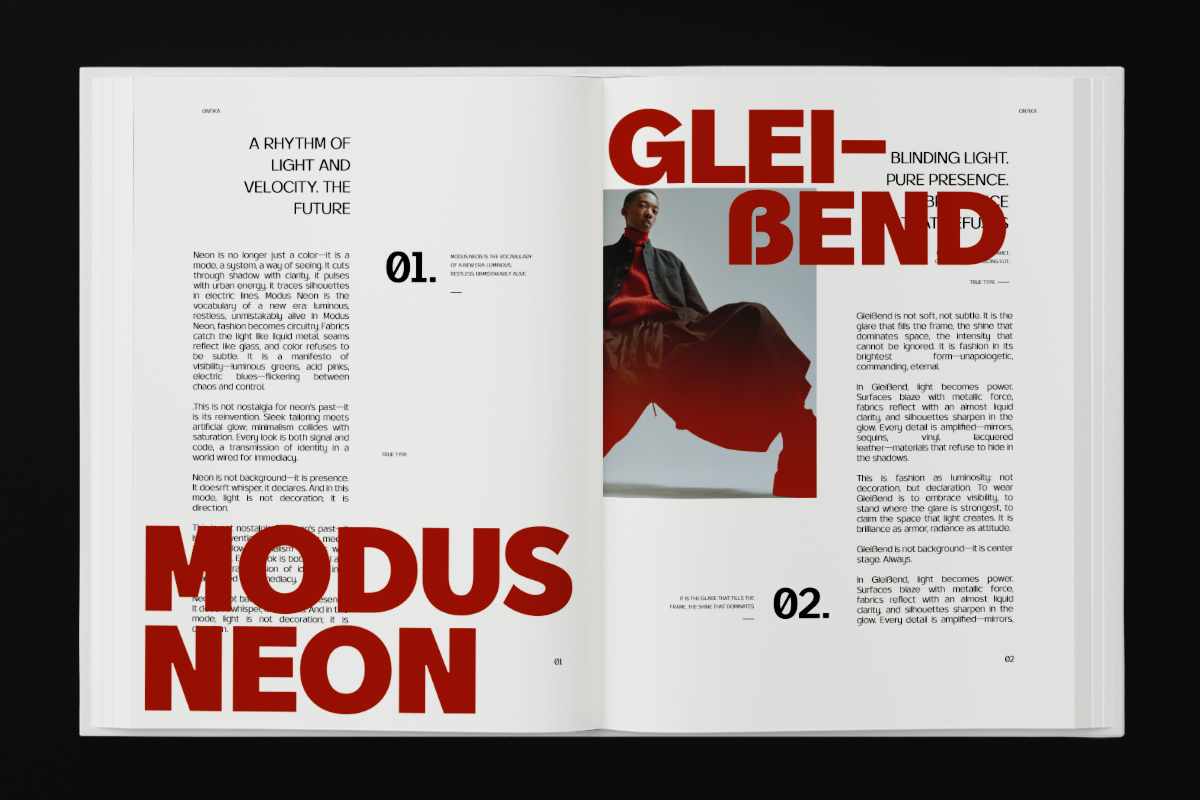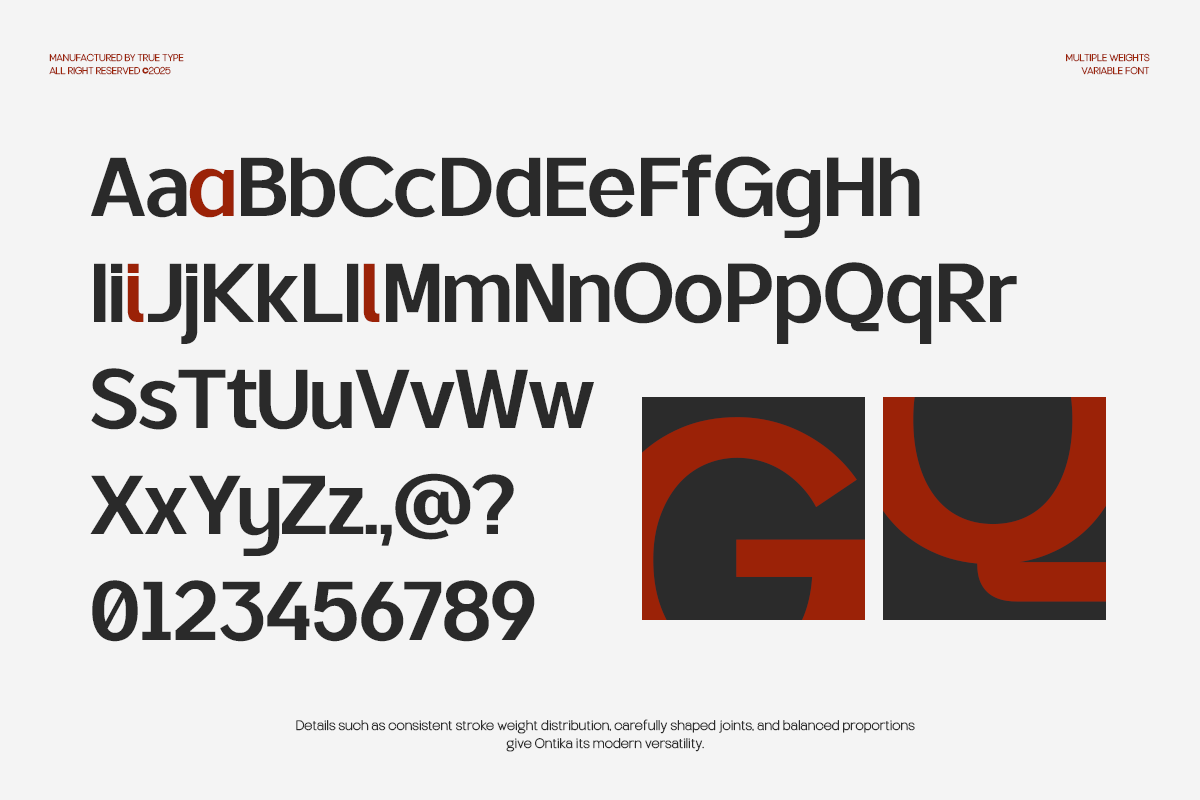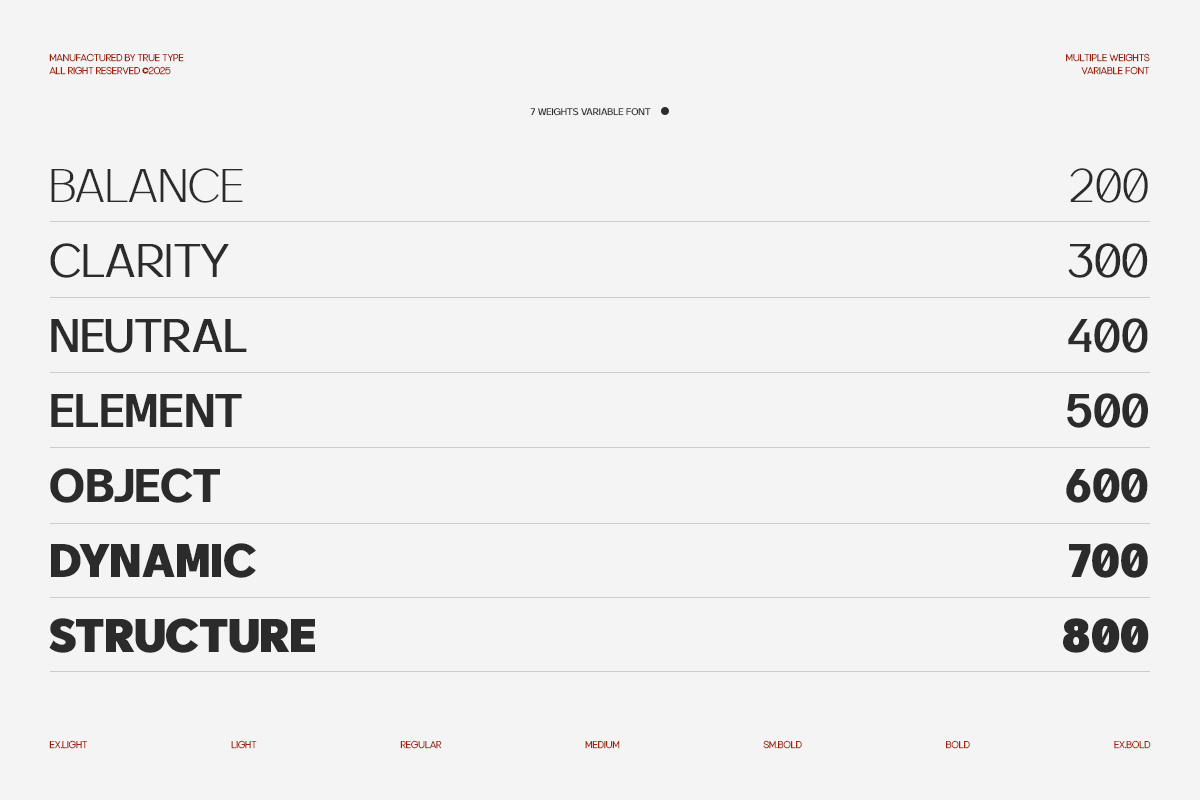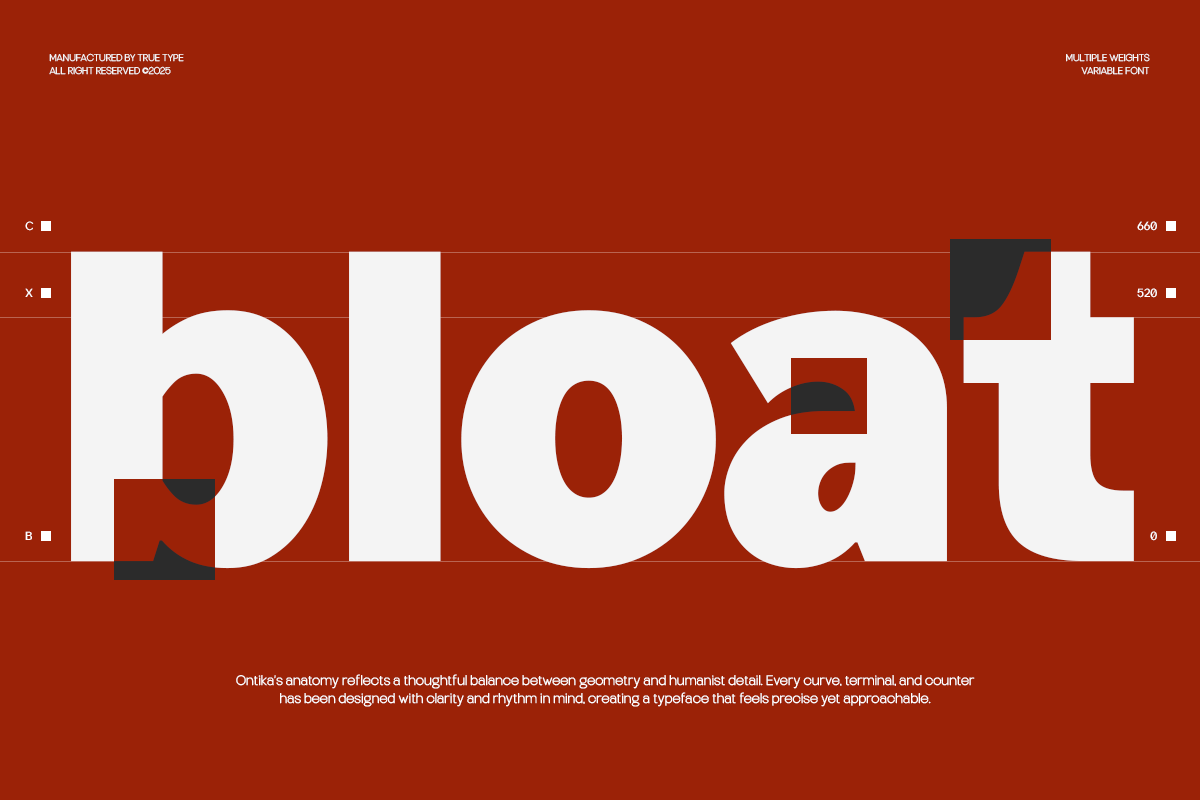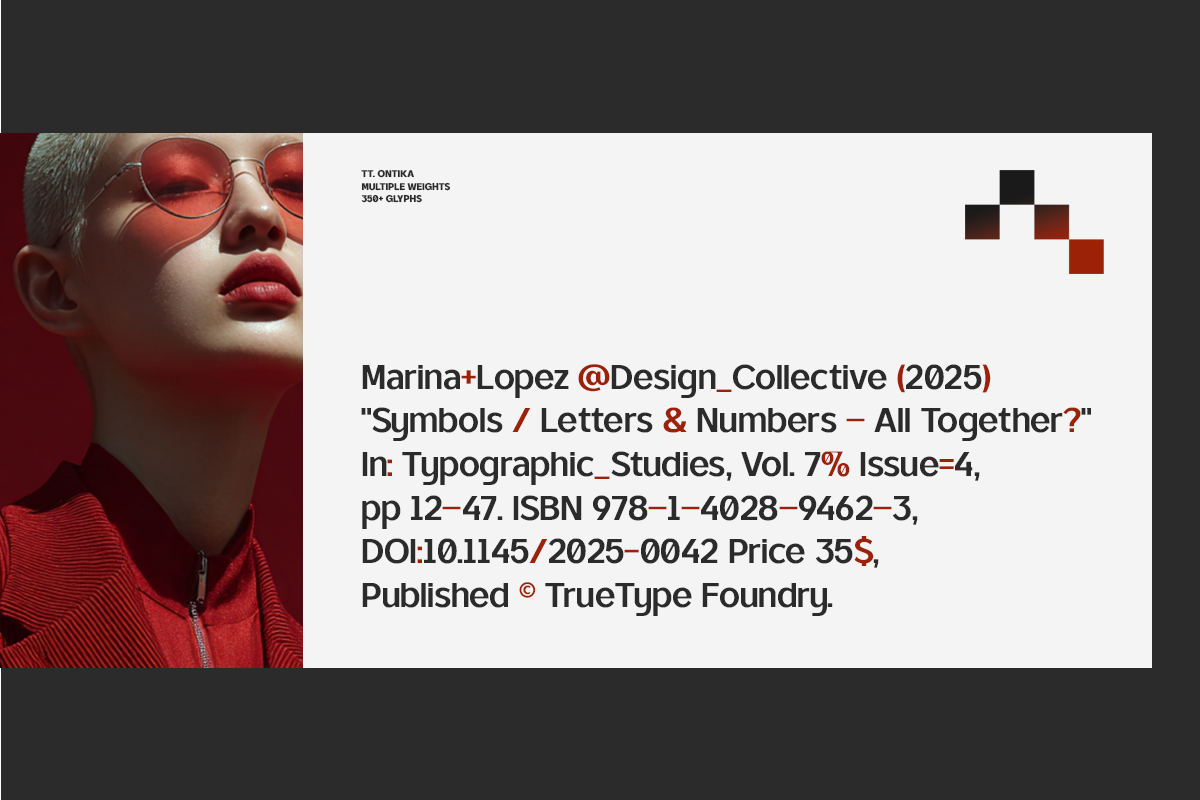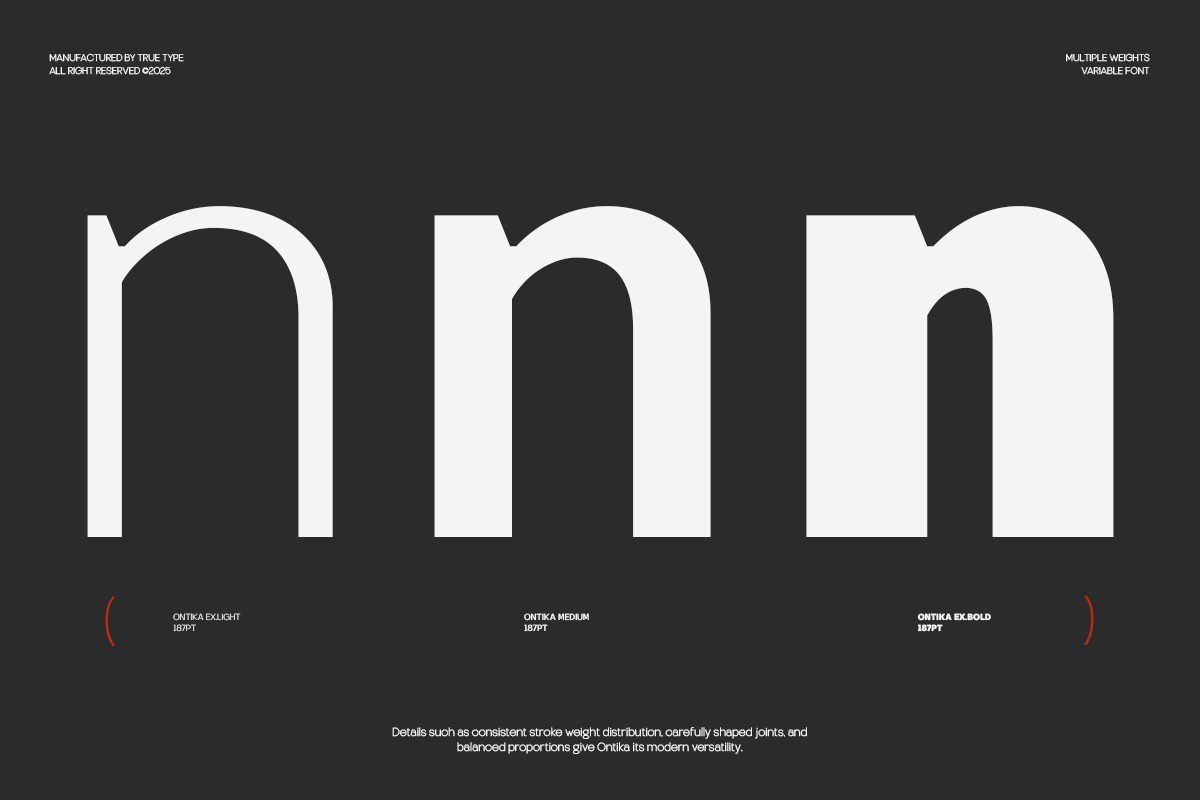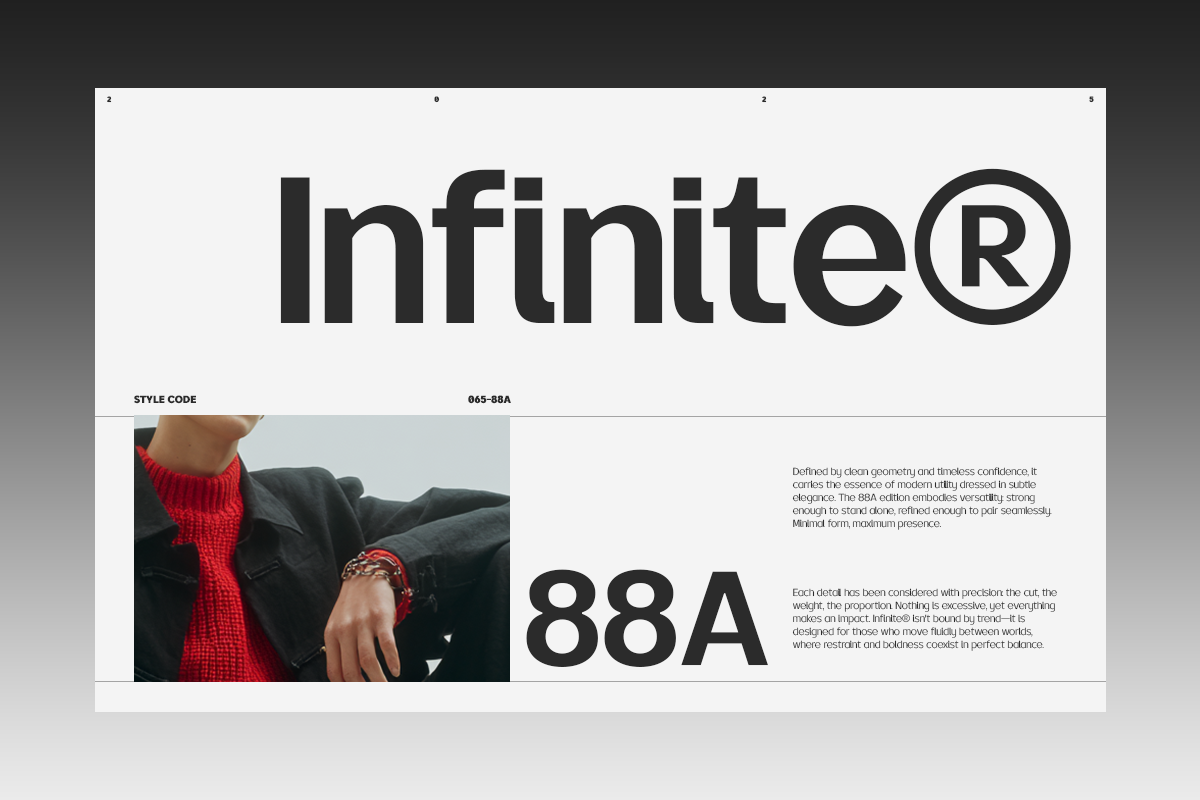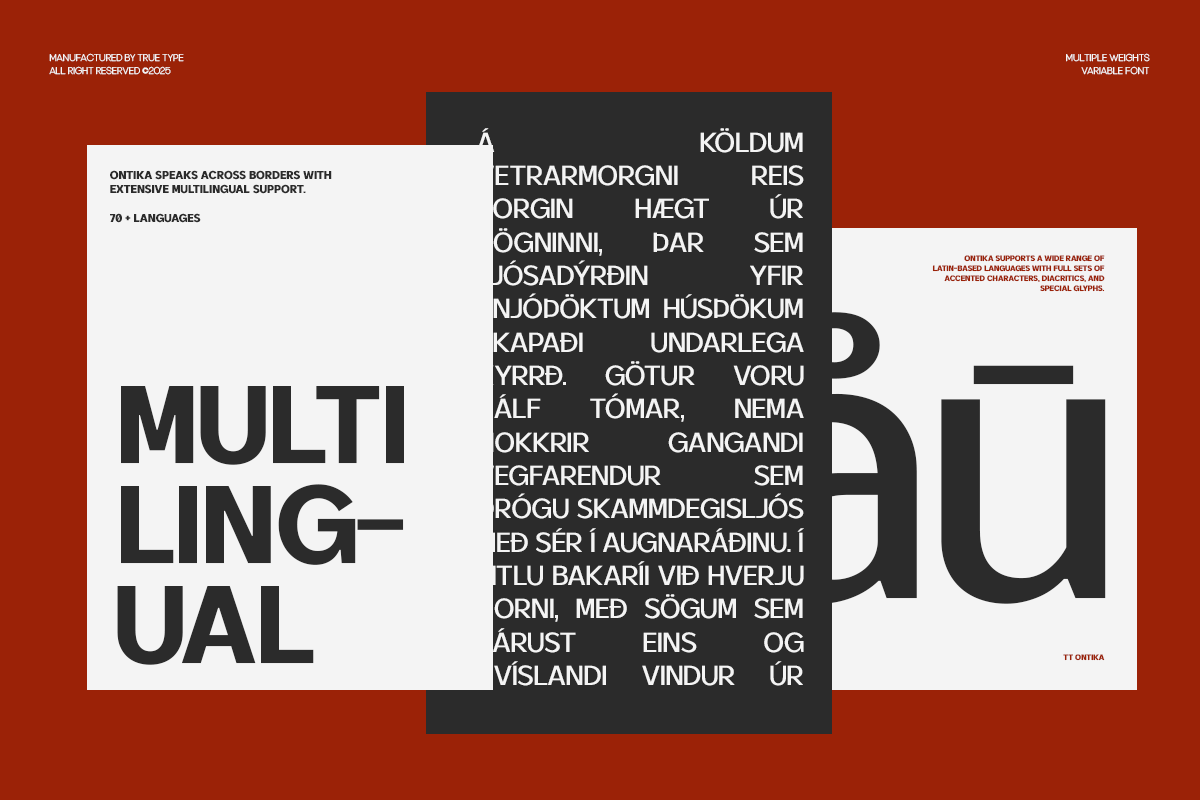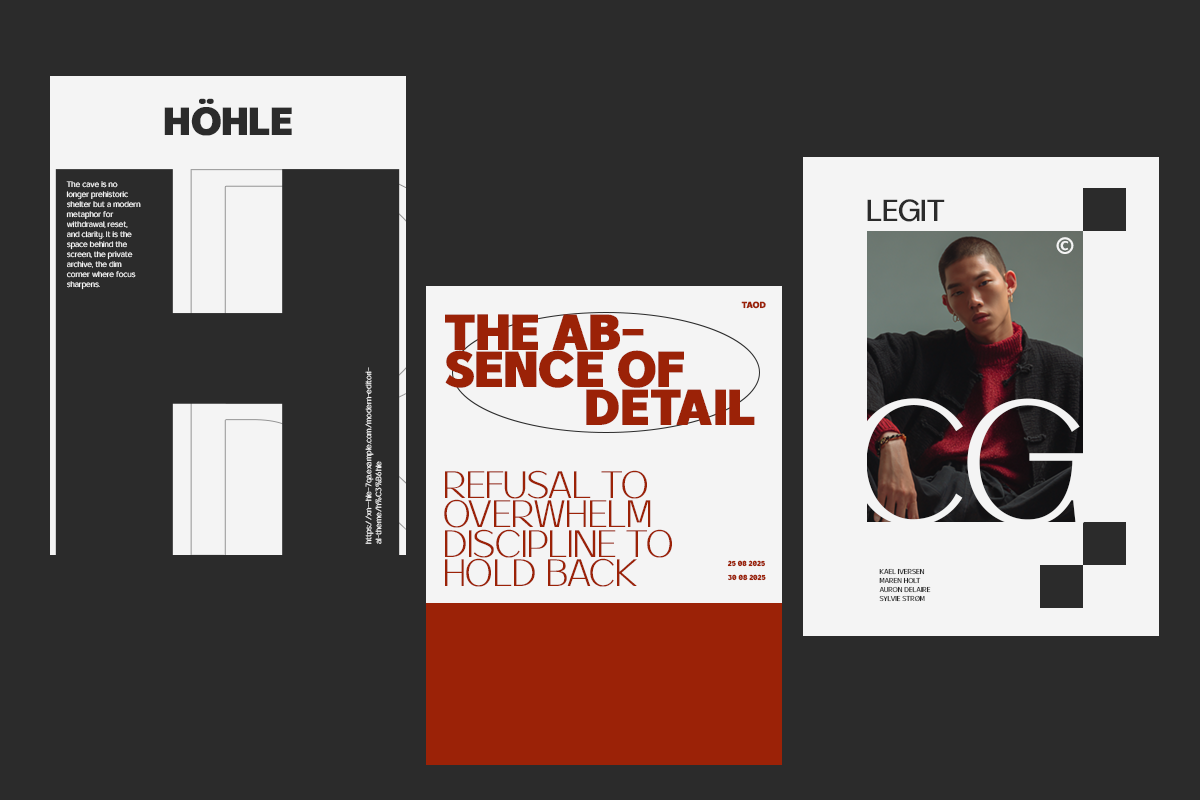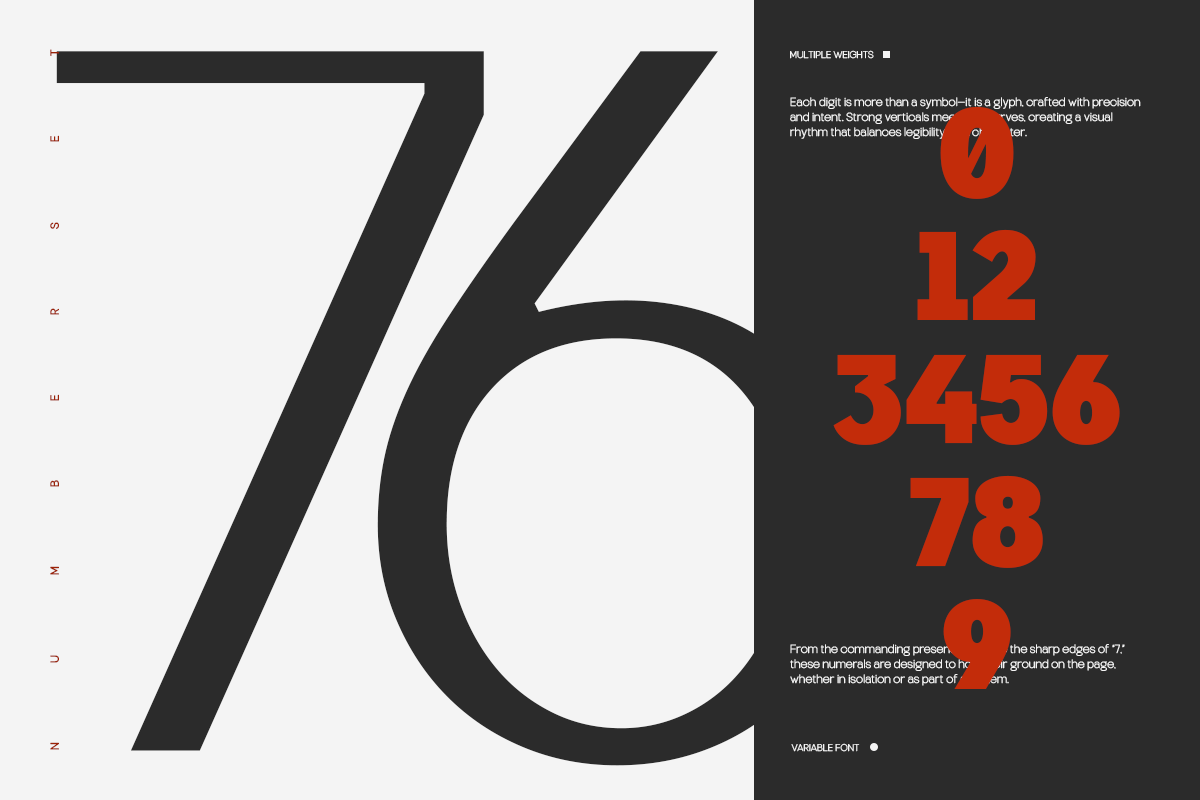
TRT Ontika Variable Sans Serif
TRT Ontika is a modern sans serif semi-display typeface that combines clean structure with confident expression. Designed to be clean and functional, yet distinctive, it blends geometric balance with subtle quirks that give it charm and flexibility.
It’s a highly usable font family, offering multiple weights and styles to support diverse design needs — from branding and editorial work to digital interfaces and packaging.
Perfect for visual identities, headlines, logos, magazines, and interfaces, TRT Ontika delivers clarity without sacrificing character. It's a reliable tool for designers seeking modern aesthetics with a touch of originality.